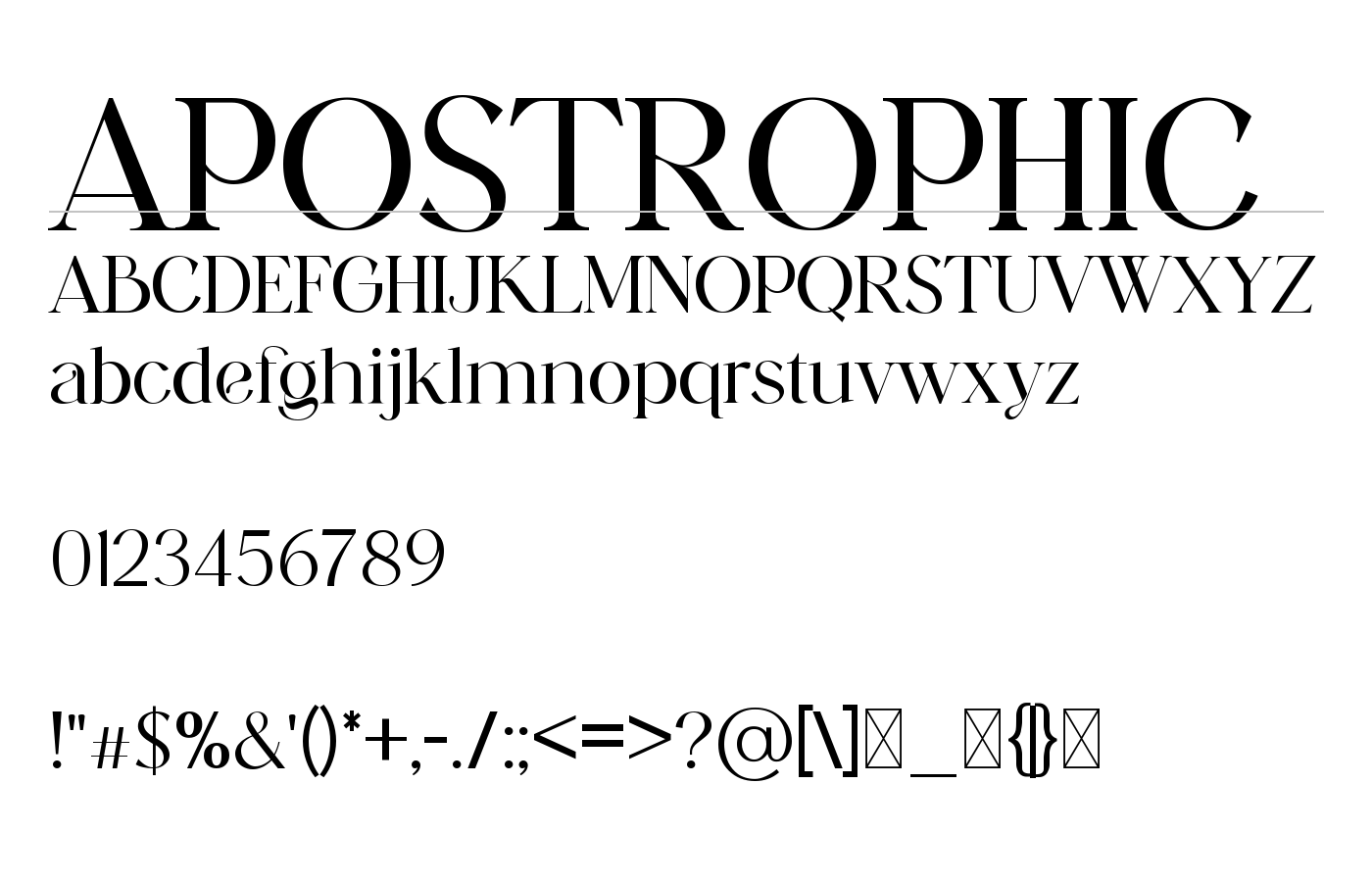
APOSTROPHIC is an elegant serif font characterized by its high contrast between thick and thin strokes, sharp serifs, and a refined, modern style reminiscent of Didone typefaces. Its slender letterforms and tall x-height give it a sophisticated and graceful appearance, making it ideal for luxury branding, editorial headlines, and fashion-related designs where a stylish and polished look is desired. This font’s clear, delicate details ensure it stands out beautifully in large sizes while maintaining readability and a timeless charm.
APOSTROPHIC Font